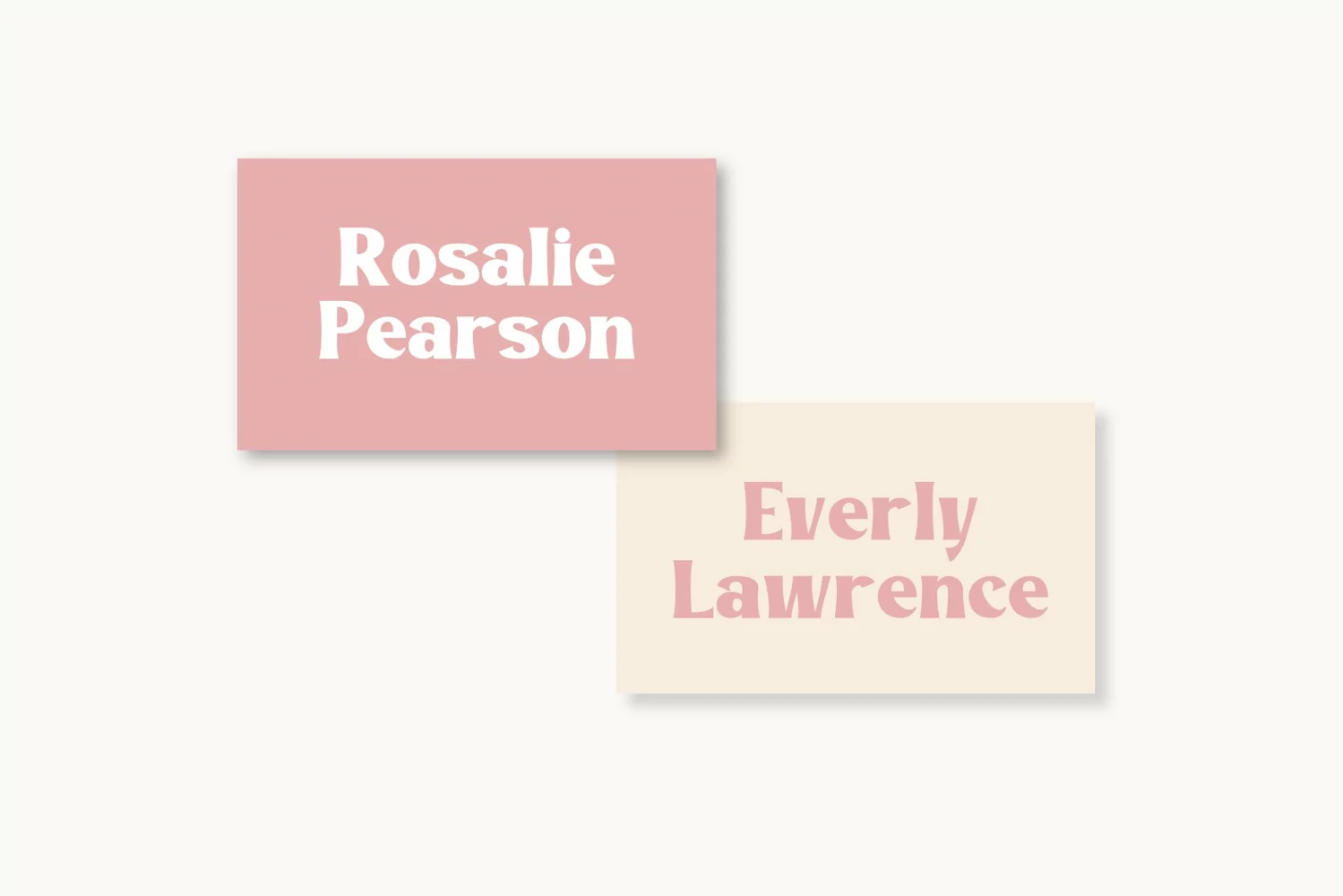
Avecrig is a Display serif font. It has an elegant and playful look that can be used for logos, branding, invitations, stationery, wedding designs, social media posts, and so much more.
Avecrig Regular
Avecrig